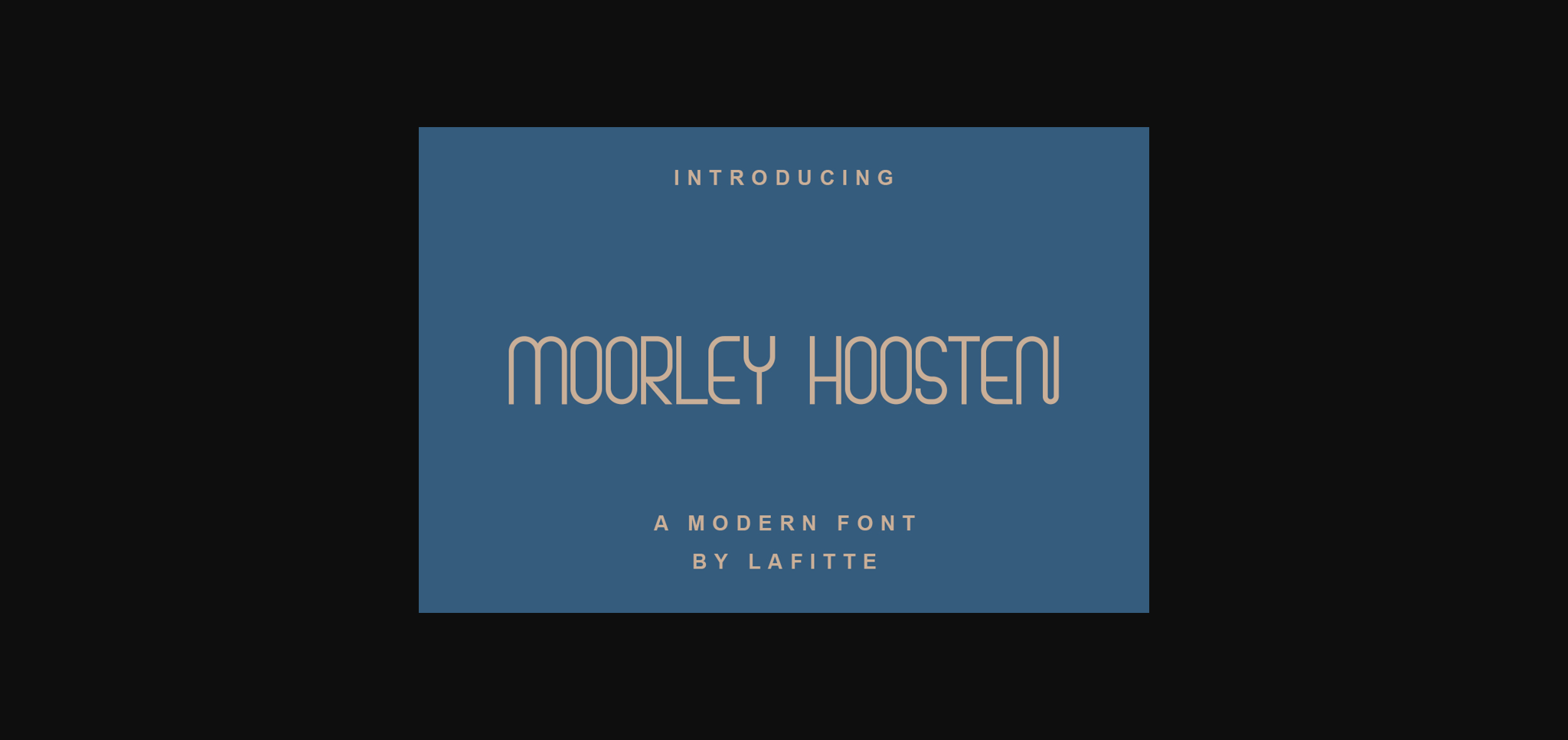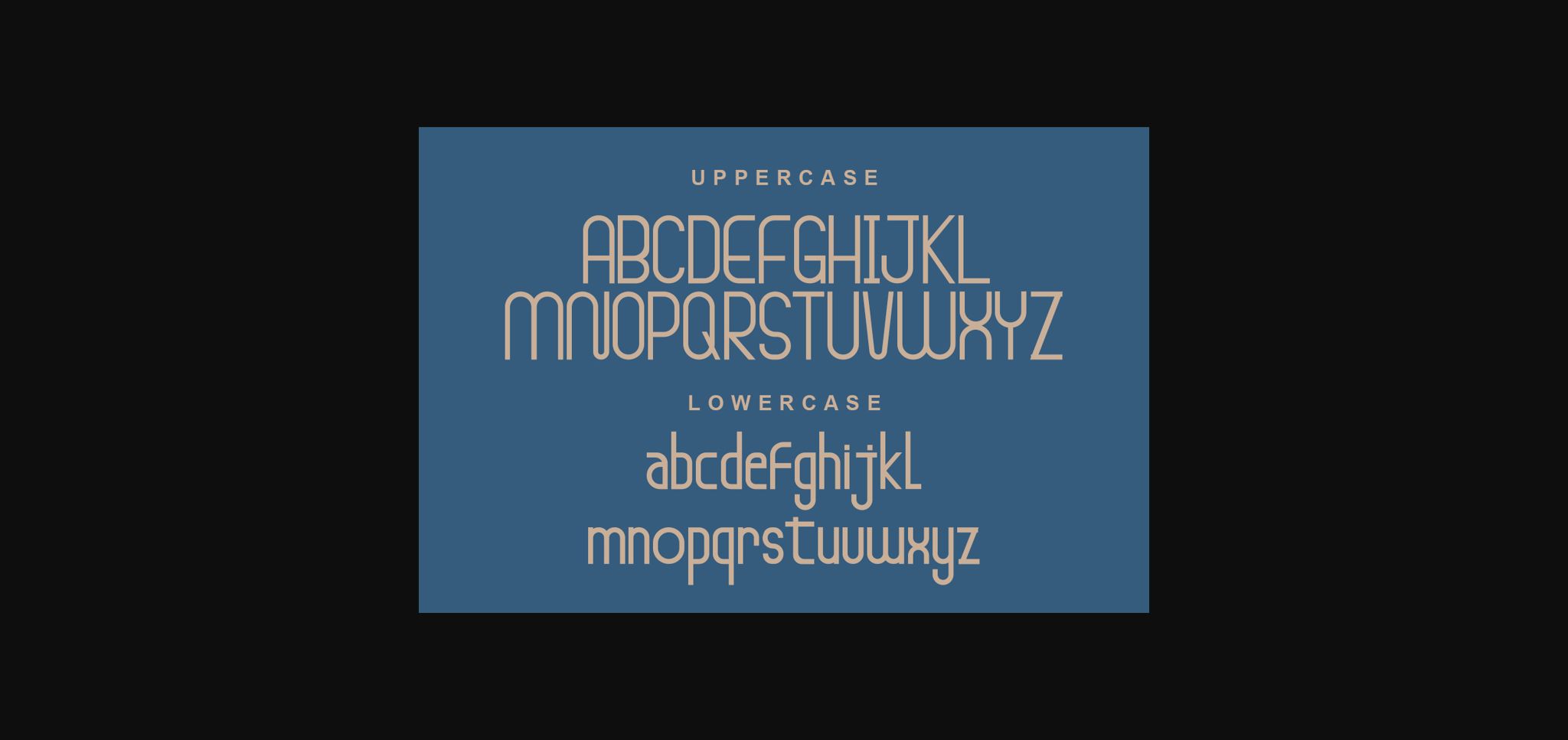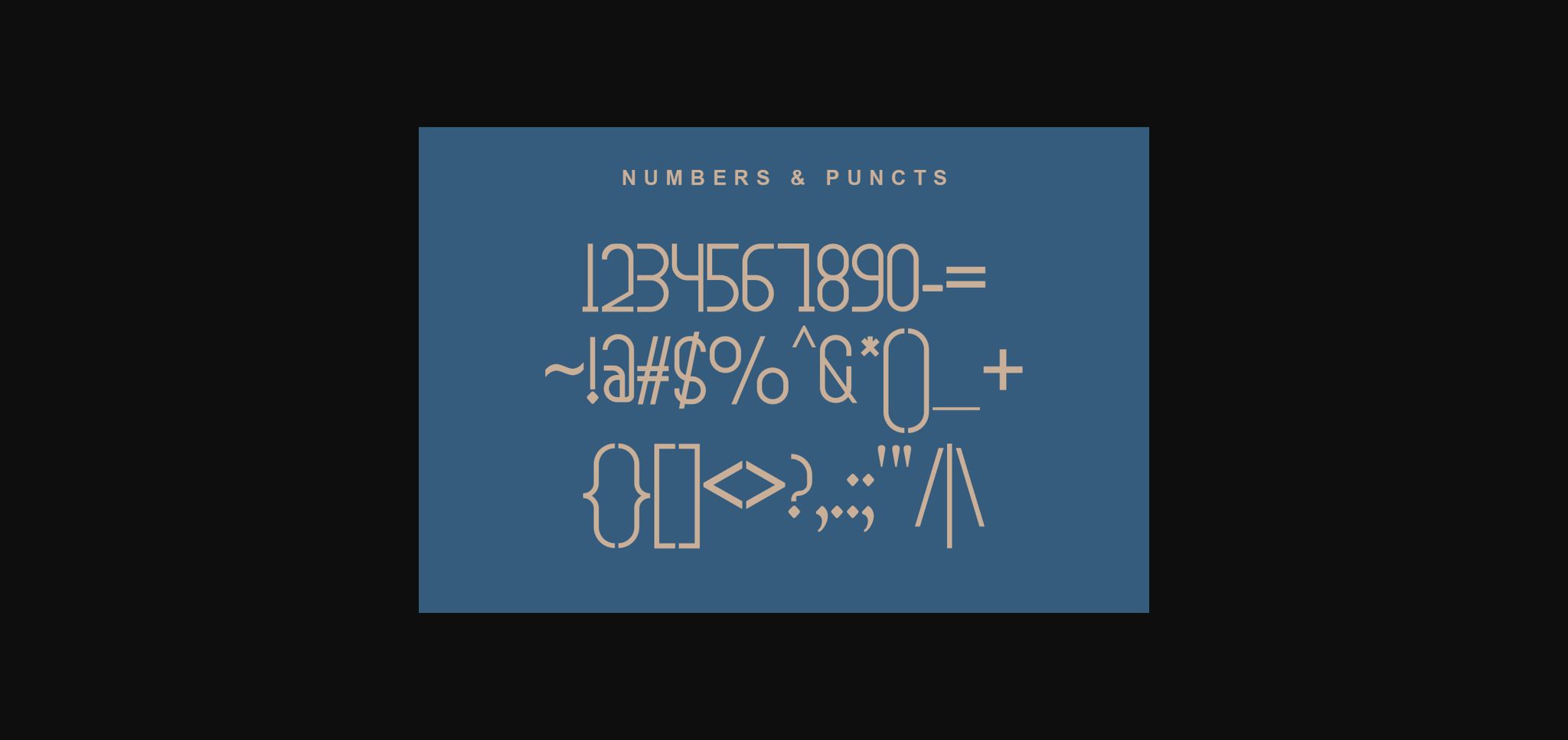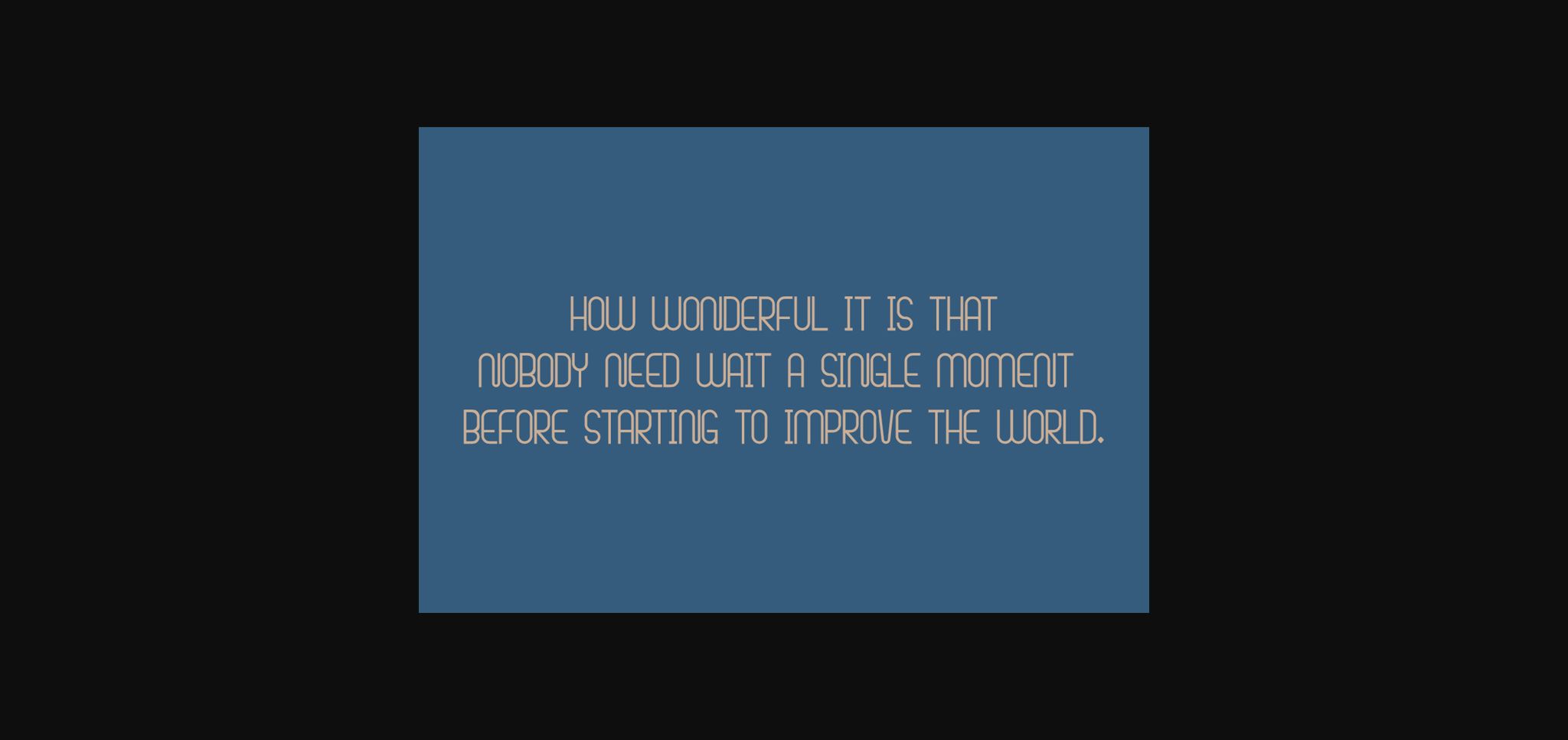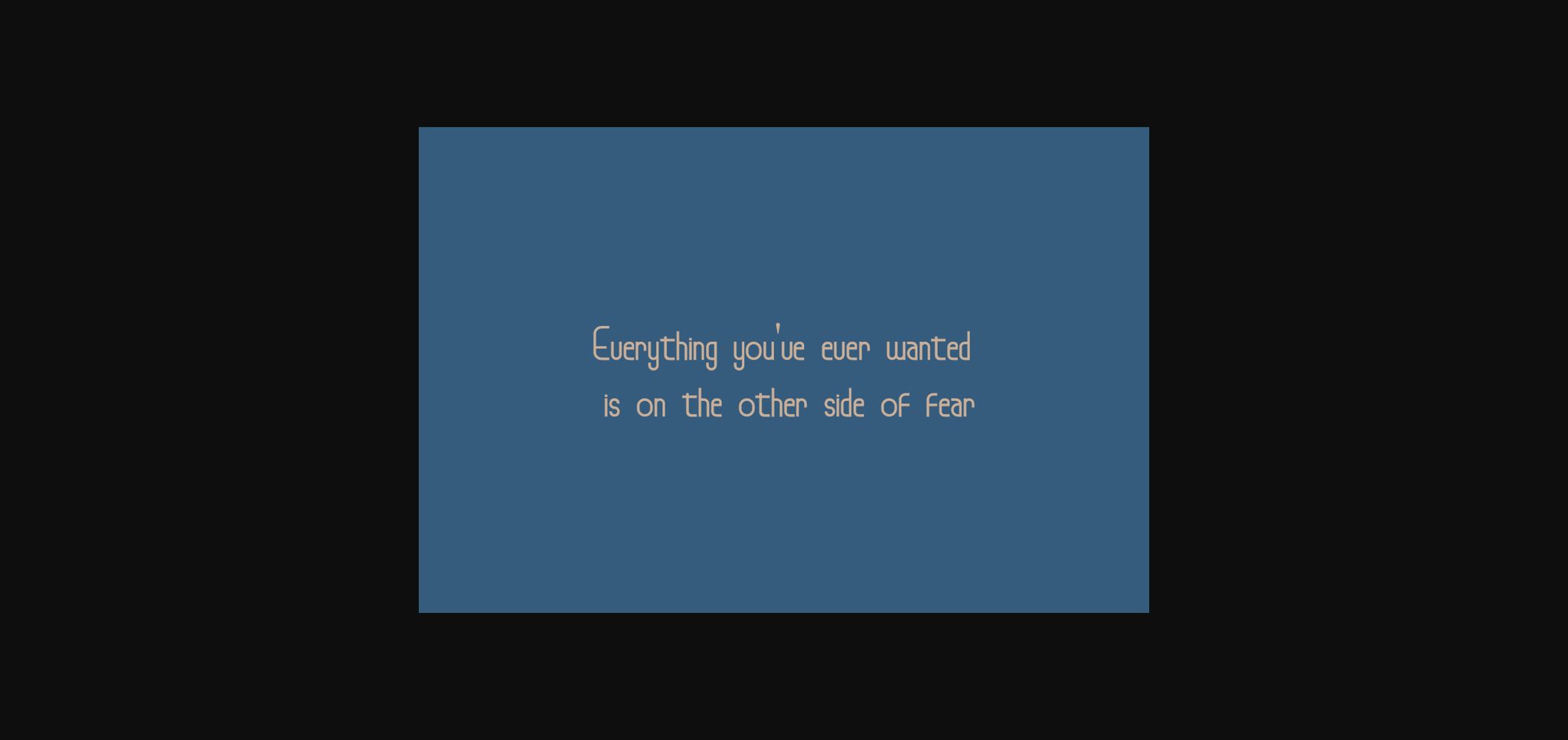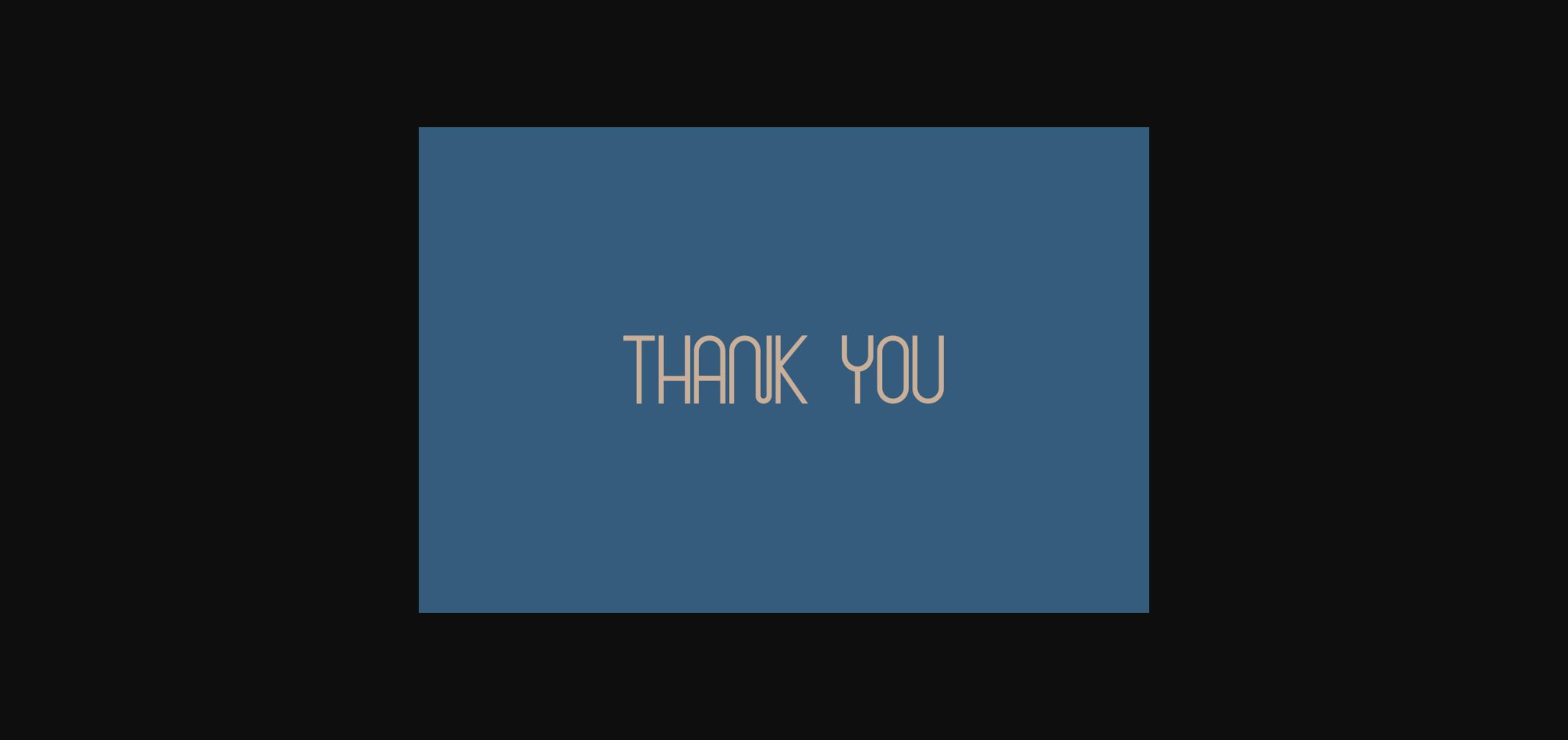
Moorley Hoosten is a modern and minimalistic sans serif font. This original look will appeal to a wide range of crafty ideas, from letterheads and titles, to stationery.